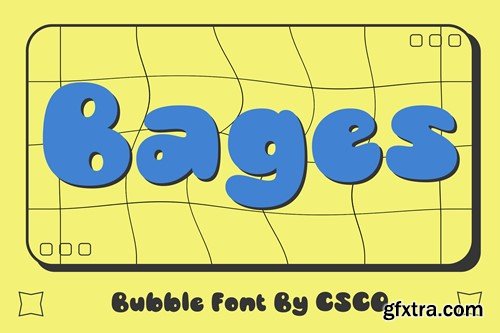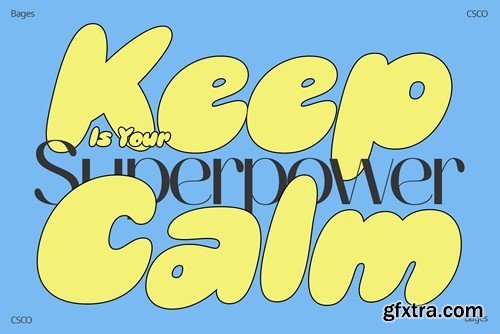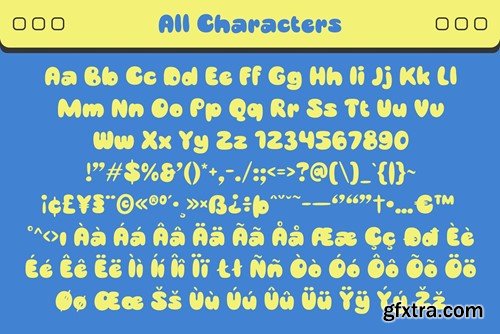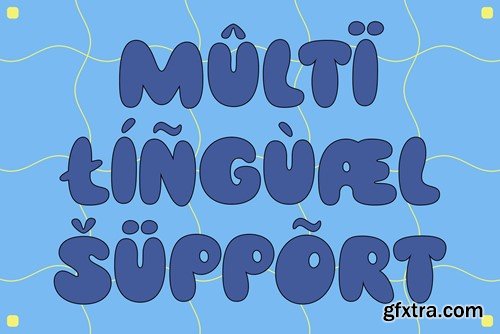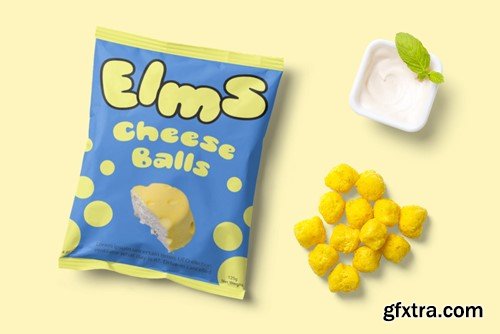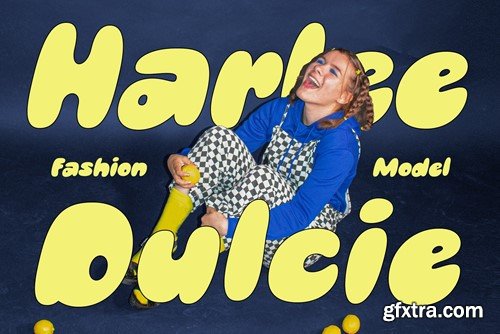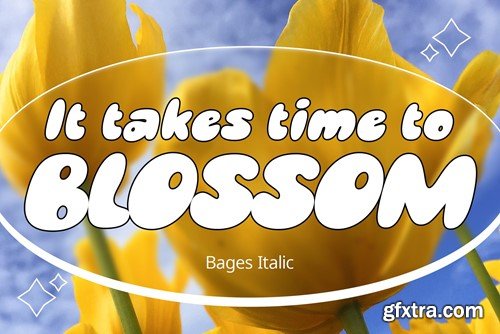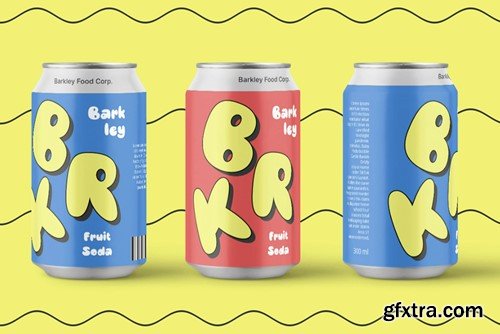
宝石 - 泡泡字体 4X2HEUC
Introduction to Bages – Bubble Font is a dynamic and cheerful display font, inspired by the playful shapes of bubbles and balloons. Ideal for catchy displays, this font captures attention instantly, making it perfect for creative and fun-filled projects. Design Features Every character in Bages – Bubble Font mimics the round, buoyant nature of bubbles. The design incorporates smooth, rounded edges, giving a floating effect akin to balloons. This unique style brings a joyful and lively flair to any design, ensuring it stands out with its playful aesthetics. User-Friendly and Appealing Bages – Bubble Font is crafted to be user-friendly and accessible to diverse audiences. Its simple and clear design makes it easy to read, appealing to both children and adults alike. In summary, this font is a delightful addition to any designer’s toolkit, infusing projects with joy and playfulness. What you get : Bages Regular Bages Italic Features : Uppercase and lowercase characters Numerals and Punctuation (OpenType Standard) Accents (Supports Multilingual Characters) PUA Encoded No specialized software is needed to utilize this typeface. For any inquiries or assistance, please don’t hesitate to get in touch. We appreciate your support in making your creative projects shine! Best regards, Craft Supply Co.